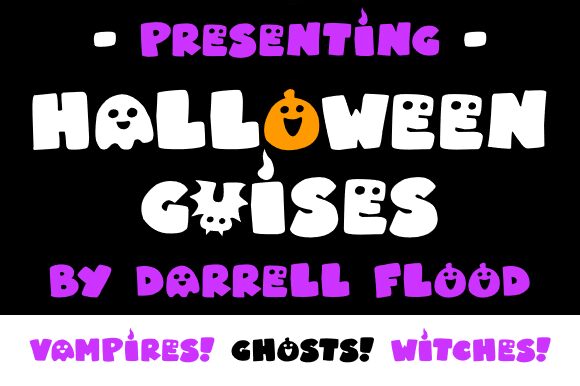
Halloween Guises
Halloween Guises, designed by Hawtpixel, is an ultra-bold font that perfectly captures the spooky spirit of Halloween. With its semi-expanded width and allcaps style, this font is ideal for creating eye-catching headlines and titles that demand attention.
Let your creativity run wild as you design haunting posters, eerie invitations, or even wickedly fun Halloween party favors. This font's boldness will ensure that your text stands out in any project, from haunted house advertisements to chillingly delightful social media posts.